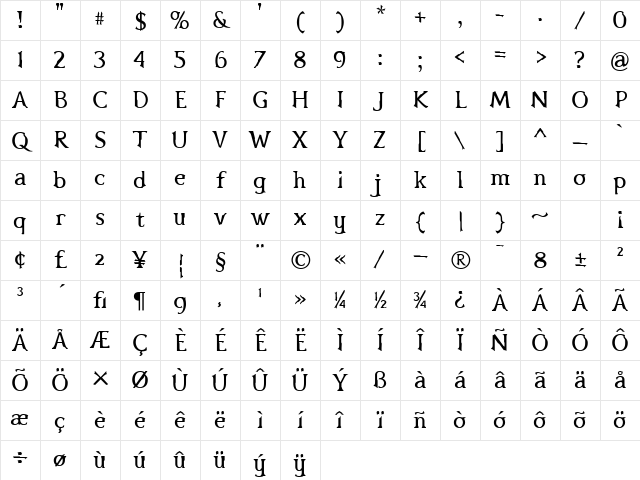
Pterra Regular
Foundry: Gravy Fonts by Margo Chase Design
Design Context for Pterra
Pterra is a composed and adaptable typeface that performs quietly and consistently across a wide range of design contexts.